The secrets and subtleties of handwriting fonts.
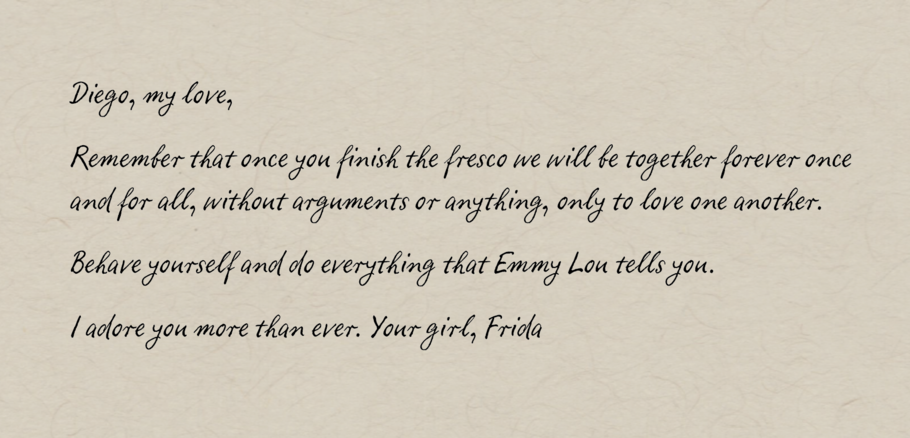
Out of all the thousands of fonts in the world, handwriting fonts are a category unto themselves. But even within that seemingly narrow niche, there is a range of styles that reflects the variations and subtle differences found in actual handwriting.
Carl Crossgrove of the Monotype Studio breaks down these different characteristics to discover what makes each style authentic and human.
Famous hands, or celebrity handwriting.
The content of written correspondence from famous poets, statesmen, criminals and freedom-fighters is of great interest. But the handwriting styles can be fascinating, too. With enough care and attention to rhythm, fonts can be made based on the writings of famous figures. Franz Kafka’s various moods are captured in FF Mister K and Josef K. Andy Warhol is famous for art, but also for a unique handwriting style, which is most likely actually his mother’s. There are typefaces made from the handwriting of Sigmund Freud, D. H. Lawrence, Albert Einstein and Paul Cezanne. 3 Islands Press has made typefaces from a number of historic figures including Abigail Adams, Frederick Douglass, and Mirabeau Buonaparte Lamar.
Personal, closely-based on real writing.
Monotype has employed many type designers over the years, and one retired design staff member, Brian Allen, had his handwriting immortalized in Segoe Script. Linotype Ego, Feltpen, Elisa, and Notec are based closely on real handwriting. ITC Zemke, Viner, Weber and Berranger Hand typefaces are all personal styles. Hermann Zapf’s Venture Script is based on his regular handwriting. Olicana by Nick Cooke is a very individual, but convincing script with three different textures. Suomi Hand Script is a typeface with a genuine handwritten look. Nicky Laatz specializes in handwriting styles, like Gotcha, Pink Lemonade and Bon Vivant Script.
Many of these designs use OpenType, ligatures and contextual alternates to reproduce a more realistic, random effect, since no two letters are really identical in any written correspondence.
Stylized or simplified handwriting.
Occasionally there is a need for a typeface that conveys the informality of handwriting without completely masquerading as actual handwriting. Letters may not connect, but they are still casual and hand-written. Some handwriting is much less cursive, and these fonts reproduce that effect. Go for these when an informal, friendly or casual effect is needed. Andy, Fineprint, MVB Calliope, Cavolini, Koorkin or Scooter are some of the many options.
There are a number of different formal handwriting styles, which give a distinct period flavor to text. These could be considered Instructional Hands; specific schemes taught and propagated by a writing master as a foundational writing hand for students. There are dozens of these styles, from many countries and many centuries. As fashion and technology changes, the prevalent handwriting styles change, too.
Zaner-Bloser, Ames, Palmer and Spencerian were some pointed-pen methods taught in the United States during the early twentieth century. Bickham Script, P22 Zaner, King Bloser, Snell Roundhand, Business Penmanship, and Burgues Script are all based on penmanship styles from this period. Many of the instructors, like Bickham and Snell, were impresarios whose writing manuals displayed virtuosic, extravagant displays of skill. In the twenty-first century, very few people are able to write in these historic styles, but a few writing experts keep the flame alive, and meet every year at the International Association of Master Penmen, Engrossers and Teachers of Handwriting (IAMPETH) conference. These handwriting styles and fonts can also be categorized as Copperplate, Pointed-pen, or Formal Scripts.
Chancery Italic was the method shown in many historic writing manuals of the sixteenth century, by Palatino, Cresci, Amphiareo, Tagliente, Mercator, and others. P22 Operina and 1522 Vicentino are both based on Arrighi’s writing, Cataneo BT is based on writing instruction of Bernardino Cataneo, and Mercator by Arthur Baker is based on Mercator’s instruction.
The same chancery Italic style enjoyed a resurgence in the second half of the twentieth century, having been identified as a very economical, clear and fast writing method by Edward Johnston, Alfred Fairbank, Lloyd J. Reynolds, and John Howard Benson. Caliban, Captain Quill, Amarone, and Florens are typefaces that refer to this more recent Chancery Italic resurgence. All these chancery styles also belong to another category of types known as Calligraphic, Broad-pen, or Edged Pen.
Simpler, more primary instruction is represented by Rosemary Sassoon’s various typefaces based on her experience in teaching children. The styles are intended to be simple, fluid and easy for children to master. As with the nineteenth- and sixteenth-century writing manuals, Sassoon’s instructions and accompanying fonts are intended to teach the basic forms and techniques of good handwriting.
The newfound art of actual handwriting.
For all this talk of handwriting fonts, what about the source material … actual handwriting? For people looking to sharpen up their own penmanship, Crossgrove recommends A Handwriting Manual, by Alfred Fairbank, and Italic Letters, by Inga Dubay and Barbara Getty. You can find more resources from the Italic Handwriting Society, or the work of Rosemary Sassoon.